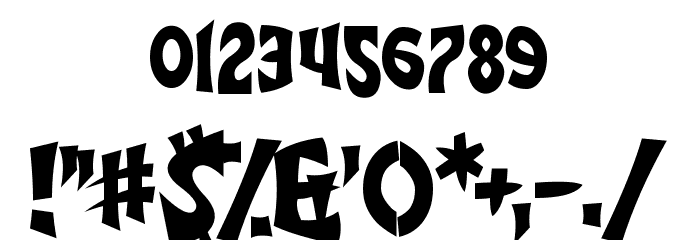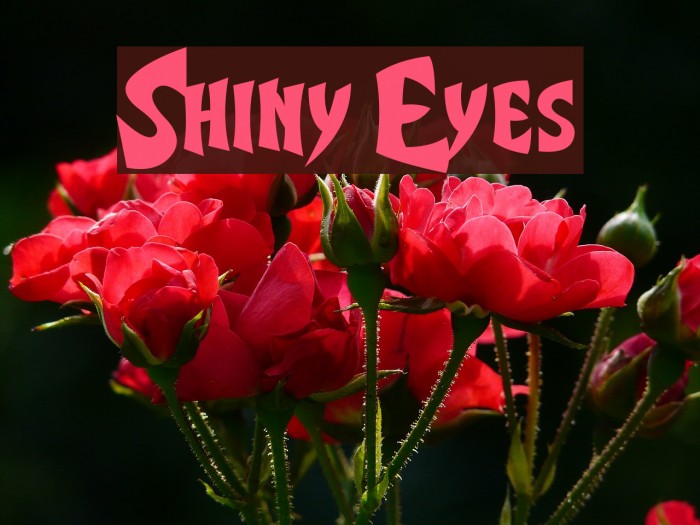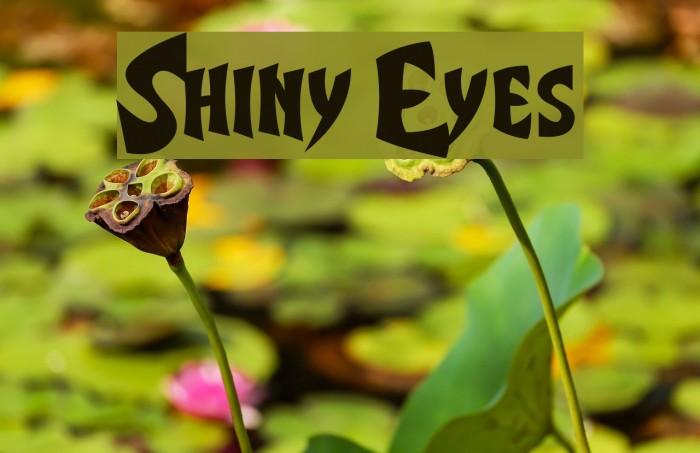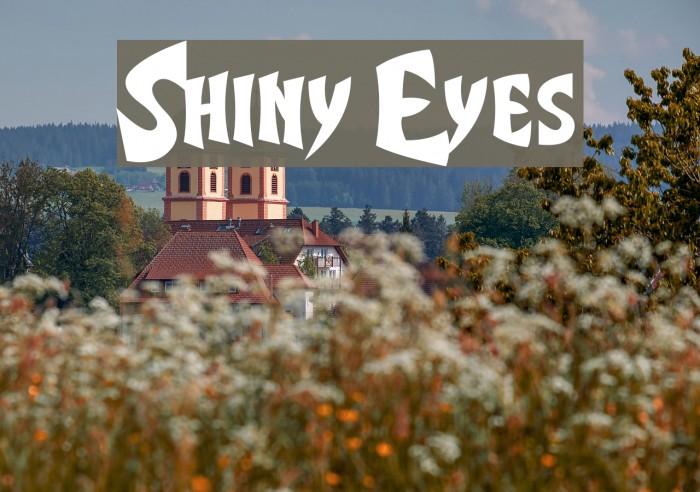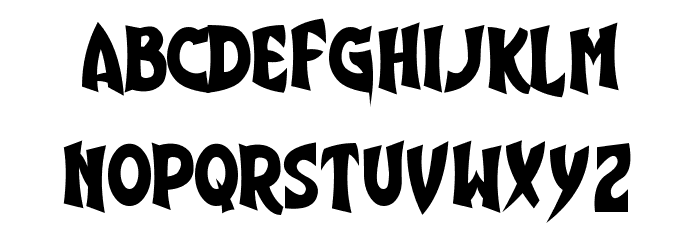
Shiny Eyes Font
Shiny Eyes Description
This font features a bold and dynamic style with sharp, angular edges and a playful, energetic appearance. The characters are heavily stylized, with exaggerated curves and points that give them a unique, eye-catching look. The uppercase and lowercase letters maintain a consistent design, creating a cohesive visual impact. The numbers and special characters follow the same aesthetic, ensuring uniformity across all elements. This font's distinctive style makes it ideal for projects that require a bold statement or a creative flair.
BoldYes
ItalicNo
WidthNormal
Character SpacingMonospaced
ContrastHigh
Overall StyleModern, Decorative
Use CaseHeadlines, Logos, Posters
Proposed ProjectsIdeal for posters, album covers, video game titles, and branding that requires a bold, creative touch.